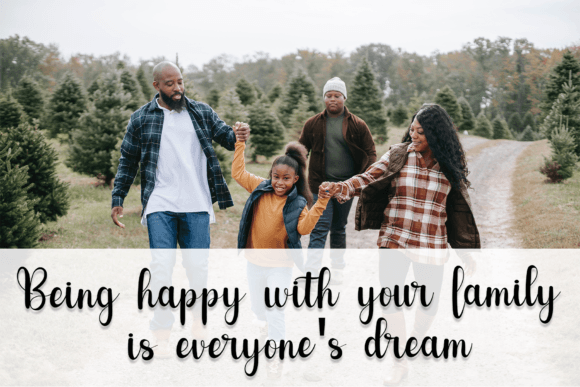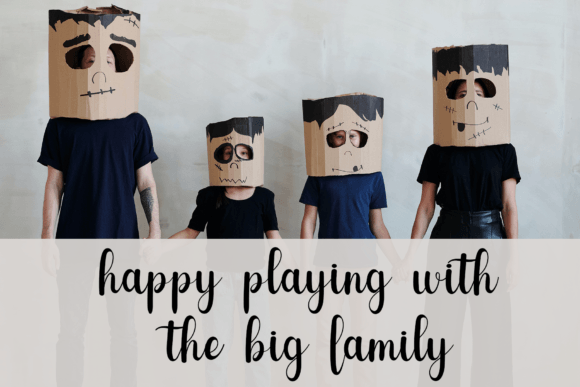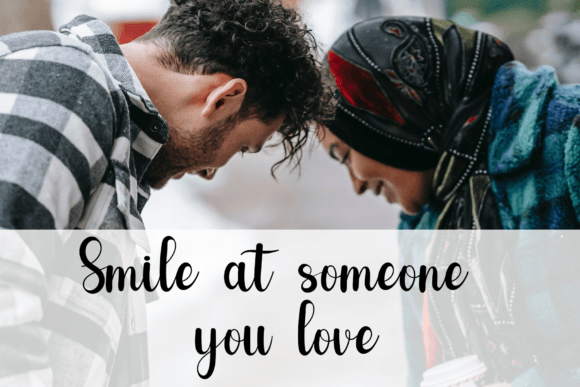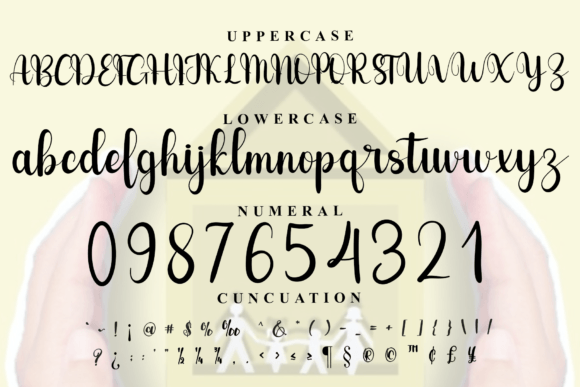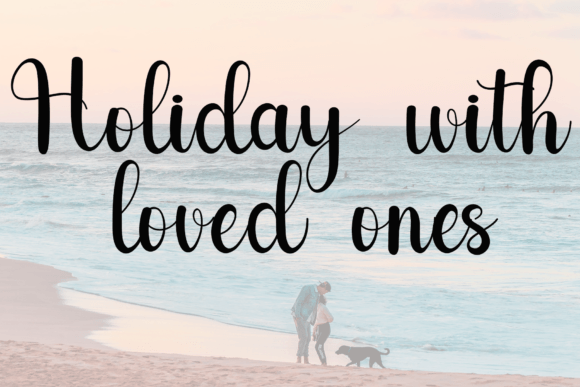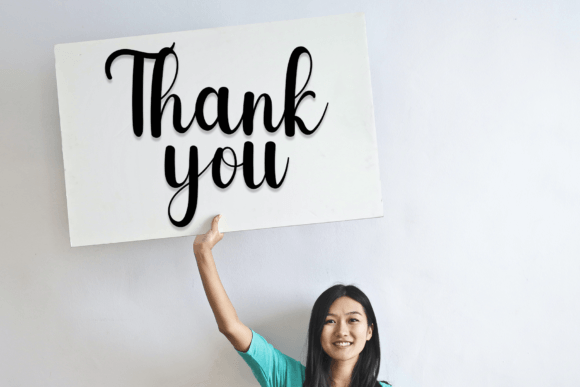
Introducing Happy Family Font: The Perfect Blend of Elegance and Modernity
Are you tired of using the same old fonts for your design projects? Look no further! Happy Family Font is here to revolutionize your creative endeavors with its exquisite handwritten style, masterfully designed to become a true favorite among designers and crafters alike.
The Perfect Balance of Classy and Contemporary
Happy Family Font strikes the perfect balance between classy calligraphic influences and a modern, fresh feel. This beautiful font is designed to add a touch of elegance to any project, making it perfect for designers and crafters who want to create stunning visual content. Whether you’re working on a wedding invitation, a branding project, or a social media graphic, Happy Family Font is sure to impress.
What Makes Happy Family Font So Special?
- Exquisite Handwritten Style: Happy Family Font boasts a beautiful, handwritten style that adds a personal touch to any project.
- Classy Calligraphic Influences: The font’s calligraphic influences give it a sophisticated and elegant feel, perfect for high-end designs.
- Contemporary and Fresh: Despite its classic influences, Happy Family Font feels modern and fresh, making it perfect for designers who want to stay on-trend.
- Versatile: This font is versatile and can be used for a wide range of projects, from wedding invitations to branding and social media graphics.
Why Choose Happy Family Font?
With so many fonts available, why choose Happy Family Font? Here are just a few reasons why designers and crafters are falling in love with this beautiful font:
- Easy to Read: Happy Family Font is easy to read, making it perfect for body text and captions.
- Highly Legible: The font’s clear and concise design ensures that your message is conveyed clearly, even at small sizes.
- Unique and Creative: Happy Family Font is a unique and creative font that will set your designs apart from the crowd.
How to Use Happy Family Font in Your Designs
Using Happy Family Font in your designs is easy! Here are a few tips to get you started:
- Pair it with Other Fonts: Happy Family Font pairs beautifully with other fonts, making it perfect for use in combination with bold or sans-serif fonts.
- Use it for Headings and Titles: The font’s elegant design makes it perfect for use in headings and titles.
- Add a Personal Touch: Use Happy Family Font to add a personal touch to your designs, making them feel more handmade and unique.
In conclusion, Happy Family Font is a beautiful, exquisite handwritten font that is sure to become a true favorite among designers and crafters. Its perfect blend of classy calligraphic influences and modernity makes it perfect for a wide range of projects. With its ease of use, high legibility, and unique design, Happy Family Font is a must-have for any designer or crafter looking to elevate their designs to the highest levels.